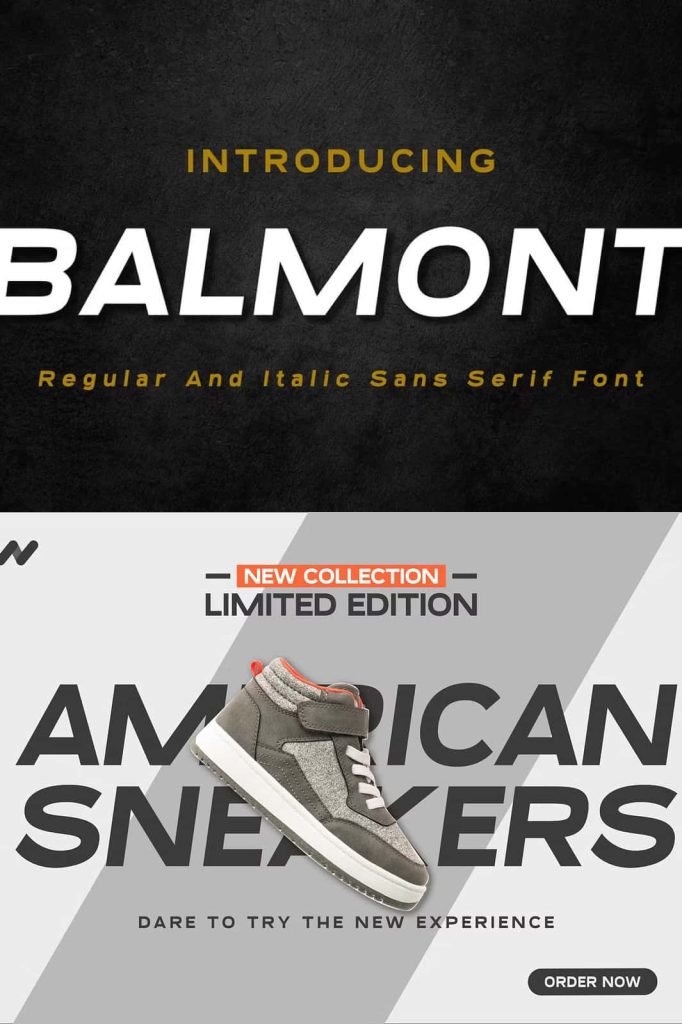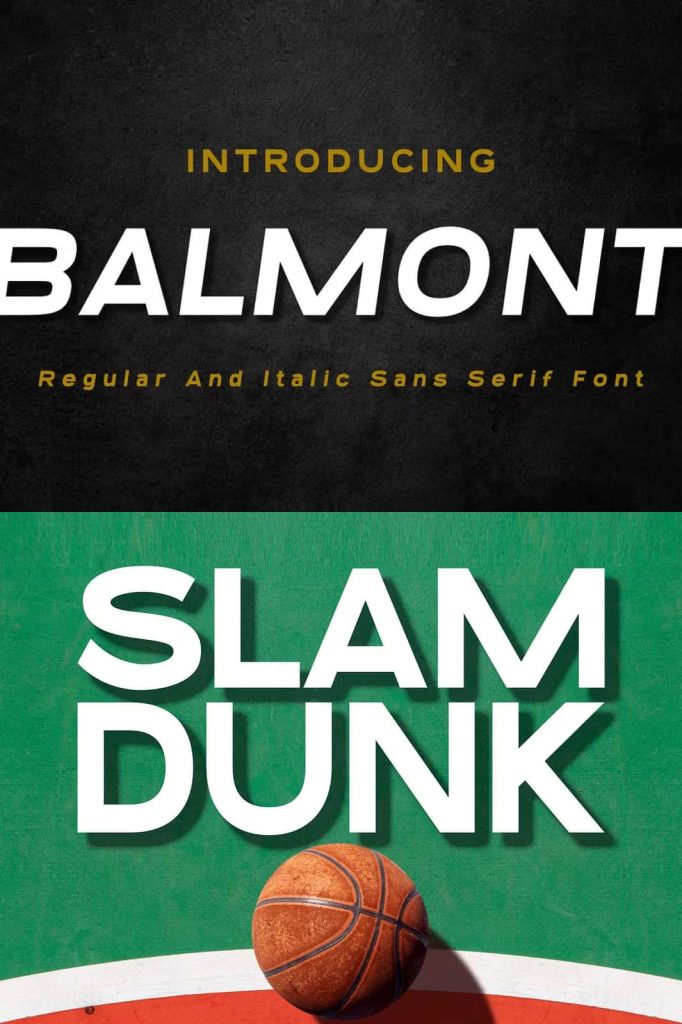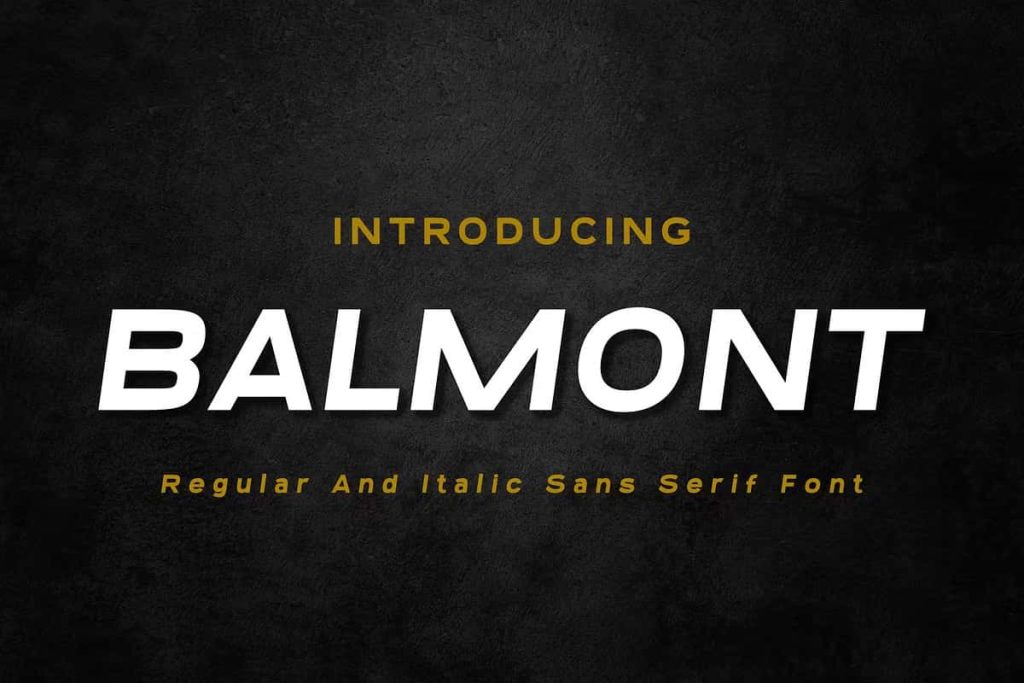
Balmont | A Modern Sporty Sans SerifleastedJanuary 16, 2025Fonts Balmont is a modern sans serif font that will make your design project stand out. Download